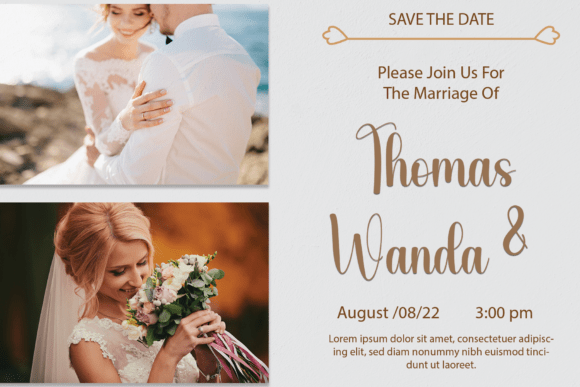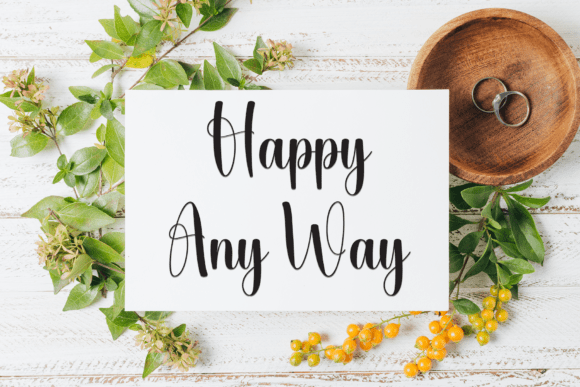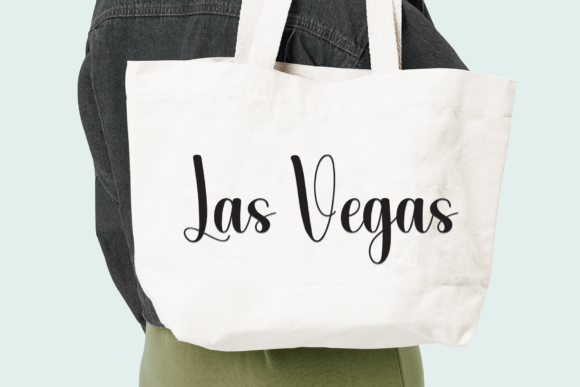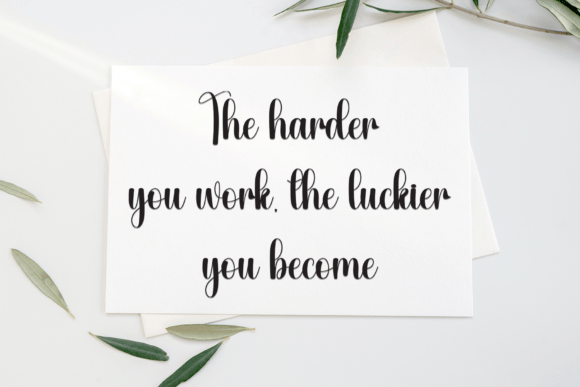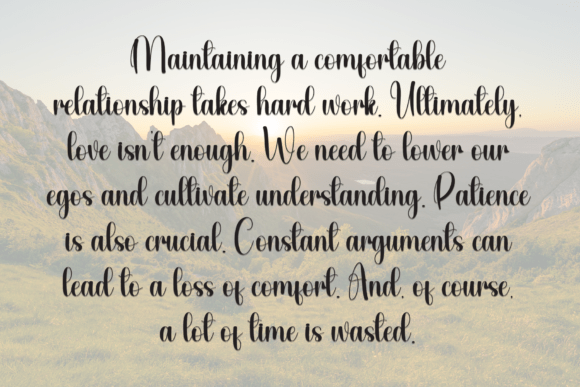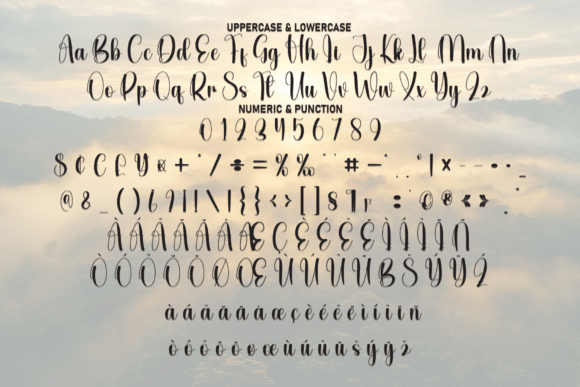
Introduction to Simple Nativity Font
As you sit at your desk, surrounded by scattered papers, empty coffee cups, and the faint glow of your computer screen, the spark of creativity suddenly strikes. You envision a beautiful wedding invitation, with elegant lines and a soft, watercolor effect. The words “Save the Date” dance across the page, and you know exactly which font to use: the Simple Nativity Font. This charming display font is more than just a design element – it’s a key to unlocking the magic of your creative project.
For designers, the Simple Nativity Font is a valuable resource that can elevate any design from ordinary to extraordinary. With its high-quality, hand-crafted strokes, it adds a touch of whimsy and sophistication to even the most mundane text. Whether you’re working on a wedding invitation, a greeting card, or a branding project, this font is sure to make a lasting impression.
Key Features of Simple Nativity Font
- High-quality design resource ideal for creative projects, such as Christmas cards, gift tags, and other holiday-themed materials.
- Designed with a simple yet elegant aesthetic, making it perfect for designers seeking a clean and uncluttered look.
Honest Review: Simple Nativity Font
I recently had the chance to work with the Simple Nativity Font, a design resource that I’d highly recommend for any creative project. The font is a beautiful addition to any design, and its high quality is immediately apparent.
What works well: ✨ The font is incredibly versatile and can be used for a wide range of projects, from Christmas cards to wedding invitations. The Simple Nativity Font also comes with a transparent background, making it easy to overlay onto any design element.
- High quality design
- Transparent background for easy overlaying
How to Use Simple Nativity Font
The Simple Nativity Font is a high-quality design resource that offers a unique and creative touch to your projects. This font is perfect for those who want to add a subtle yet meaningful element to their work.
Getting the Most Out of It
To get the most out of the Simple Nativity Font, use it on a transparent background to create a subtle and elegant look. You can also combine it with other fonts to create a unique and creative project.
The Simple Nativity Font is perfect for:
- Christmas and winter-themed projects
- Religious and spiritual designs
- Any project that requires a touch of elegance and sophistication
Can I customize the Simple Nativity Font to fit my specific design needs?
While the Simple Nativity Font is a high-quality design resource, it is not a customizable font. However, you can use font editing software to modify the font’s appearance, such as changing the size, color, or style. Keep in mind that making significant changes to the font may affect its overall aesthetic and legibility.